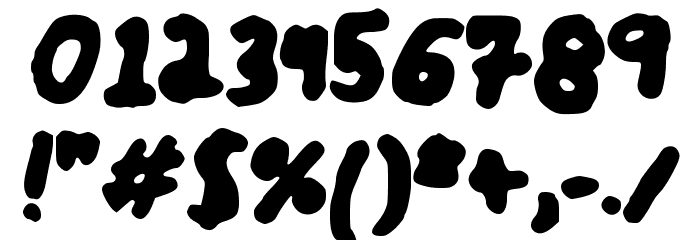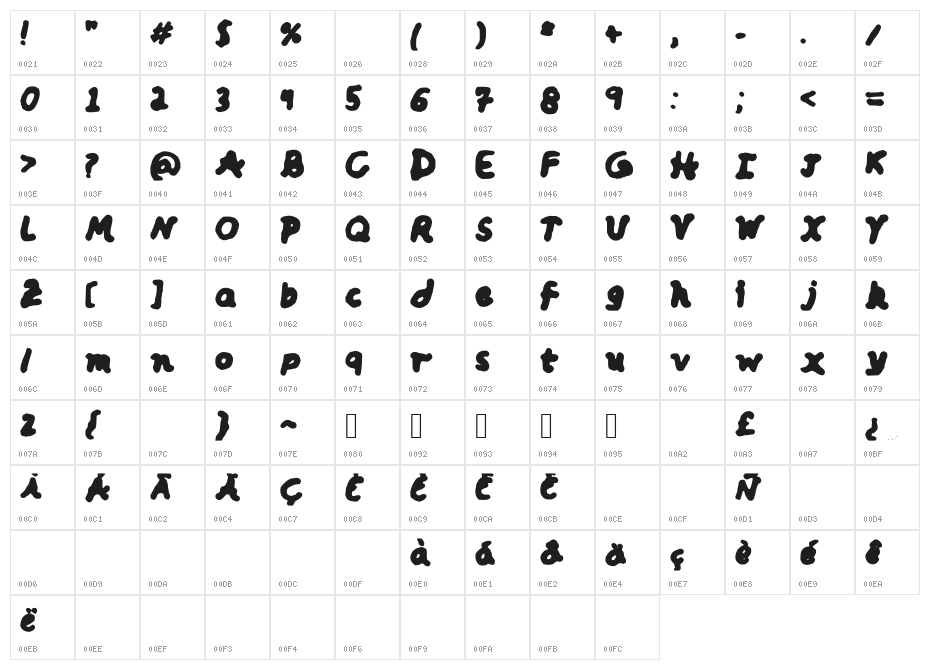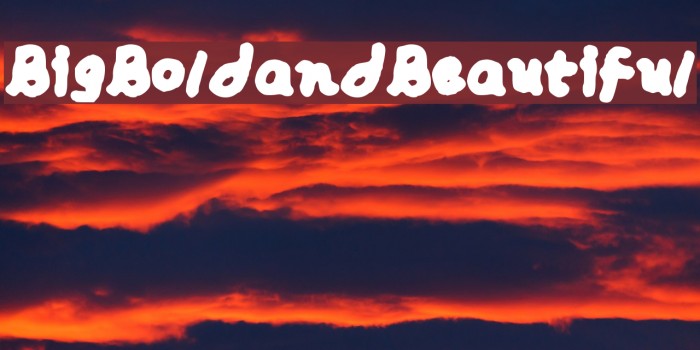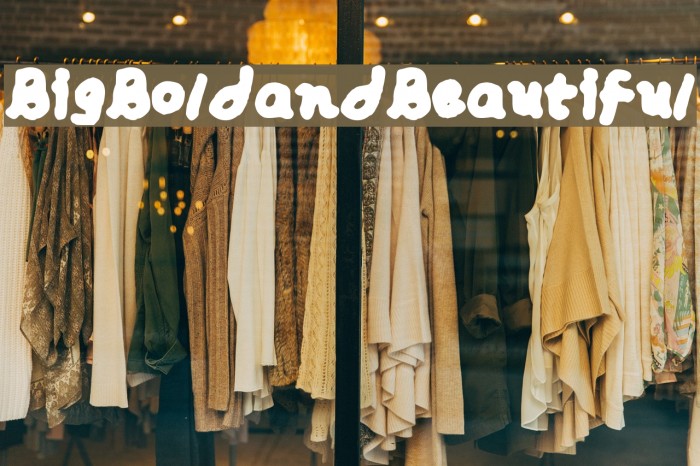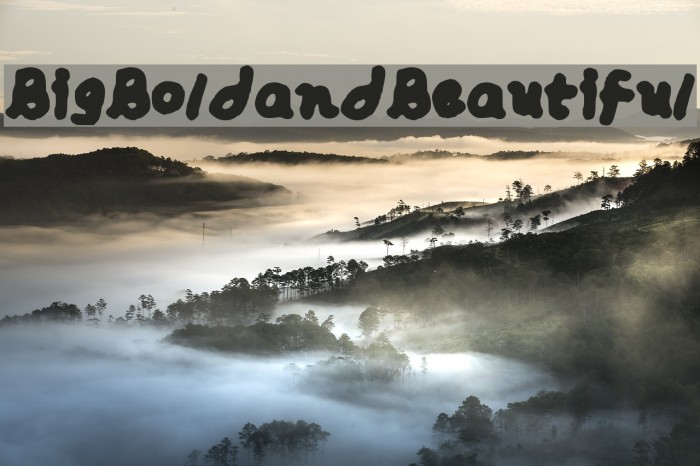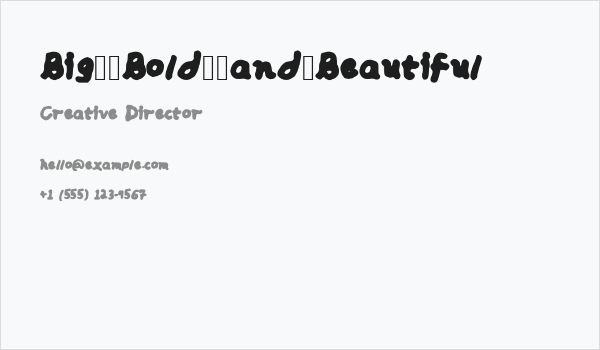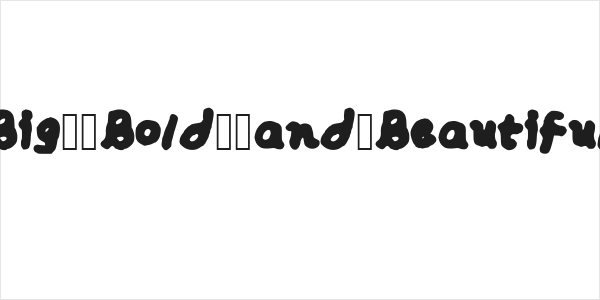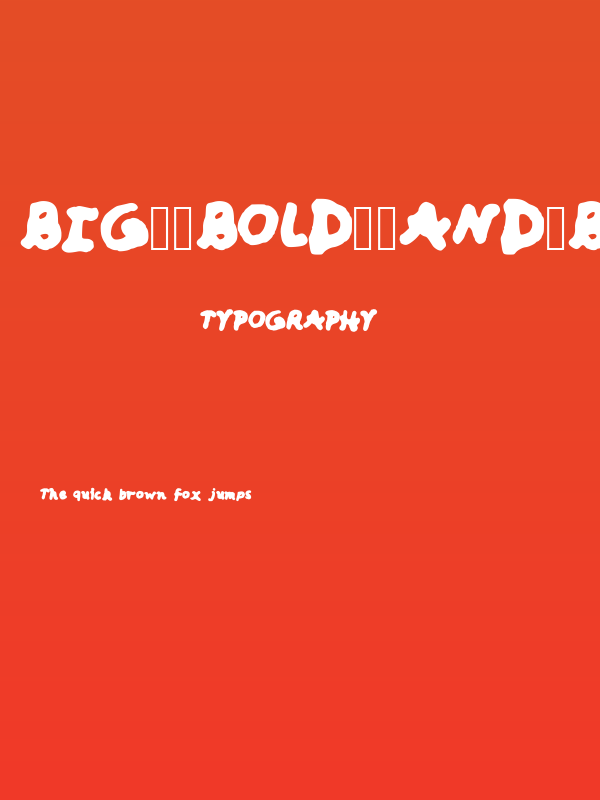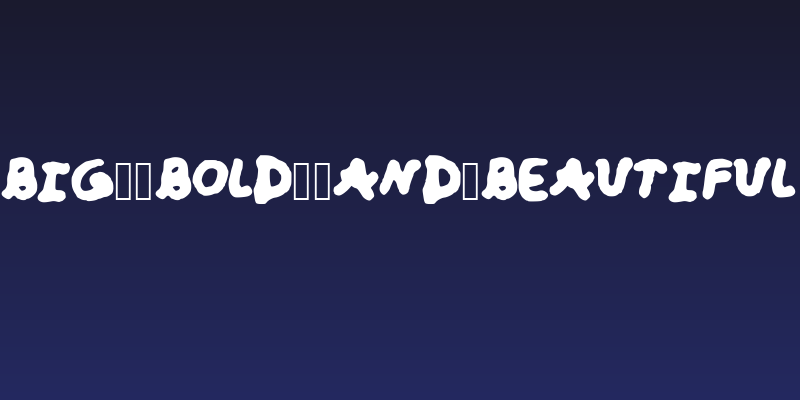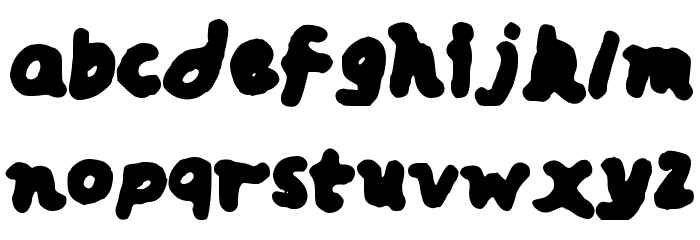
Big__Bold__and_Beautiful Font
Big__Bold__and_Beautiful Description
This font features a bold and playful style with thick, rounded strokes that give it a bubbly and energetic appearance. The characters are slightly irregular, adding a whimsical and hand-drawn feel. The uppercase and lowercase letters maintain a consistent weight, creating a cohesive look across the alphabet. The numbers and special characters follow the same design principles, ensuring uniformity. This font's unique style makes it stand out, making it ideal for projects that require a fun and engaging visual impact.